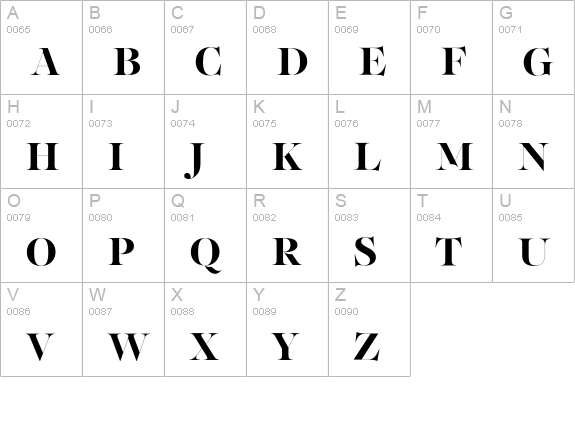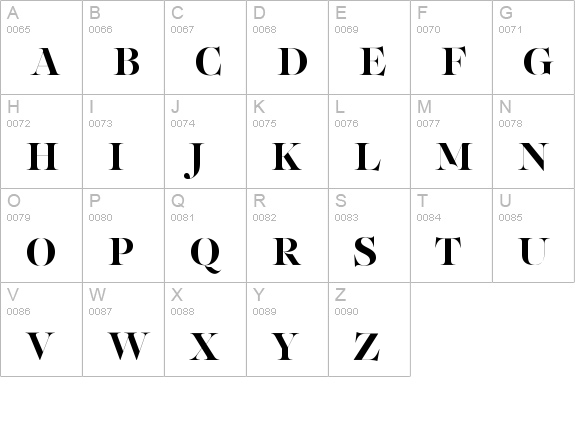
PFRegalFinessePro-Bold is a strong, high-contrast variant in the PFRegalFinessePro typeface family \xE2\x80\x94 well suited to headlines, attention-grabbing titles, and strong calls-to-action.
PFRegalFinessePro-Bold is a stunning and elegant display font that exudes sophistication and style. With its bold and refined design, this font is perfect for making a statement in your projects, whether it's for branding, editorial design, or advertising. What makes PFRegalFinessePro-Bold even more appealing is that it is available for free download at FontsMarket.com. This means you can easily access this premium font and use it in your creative endeavors without any cost. The sharp and precise lines of PFRegalFinessePro-Bold give it a modern yet timeless look that will elevate your designs and captivate your audience. Whether you're creating a logo, a poster, or a website, this font will add a touch of sophistication and professionalism to your work. Download PFRegalFinessePro-Bold today and see how it can take your projects to the next level.